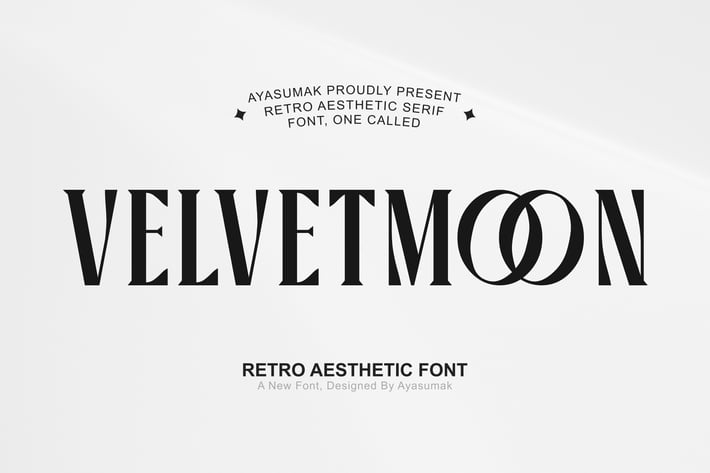
Velvet Moon - Retro Aesthetic Font
Introducing Velvet Moon - Retro Aesthetic Font - a Modern Professional Typeface excellent used for Heading or Title, Logotype, Merchandise, Clothing, Magazine, Corporate, Sports, Event, Ticket and many more.